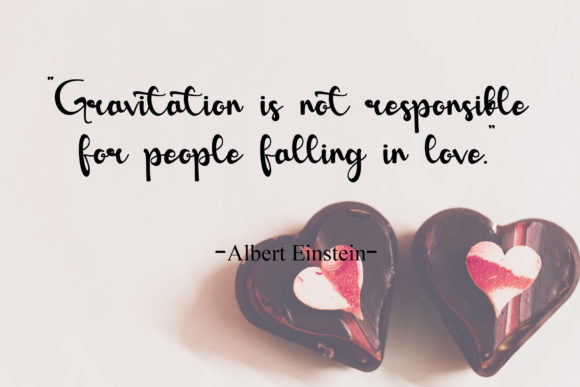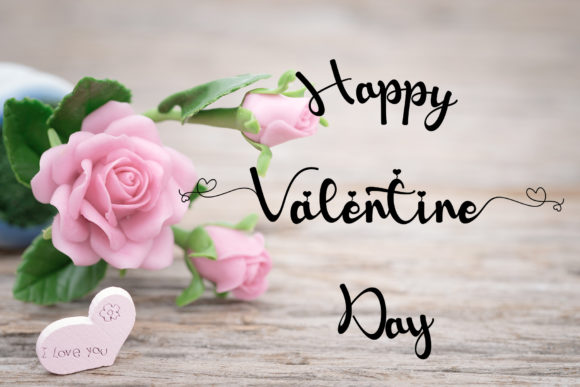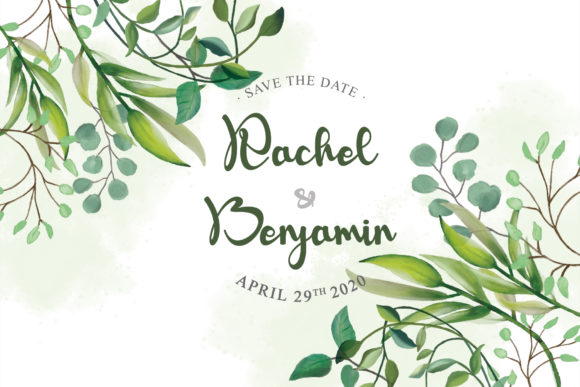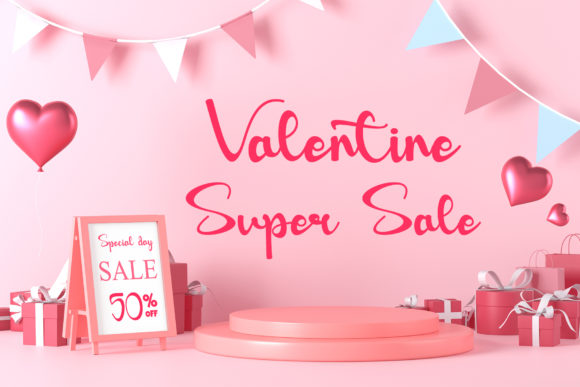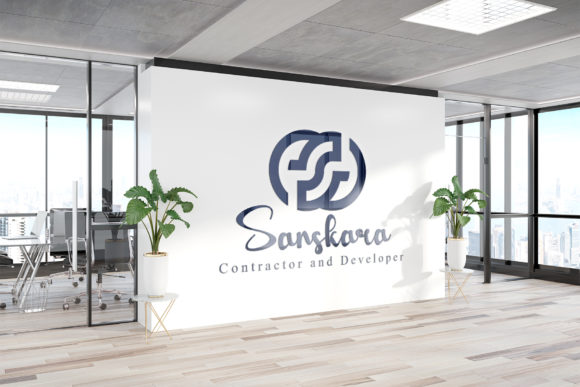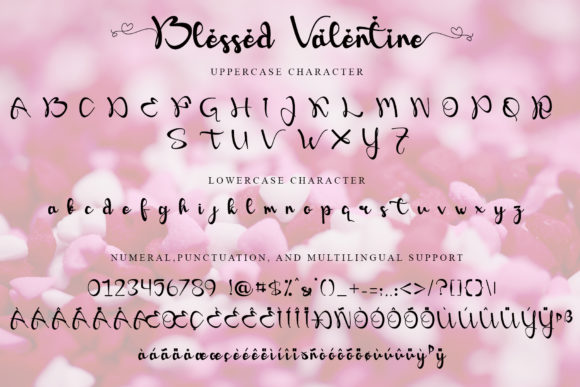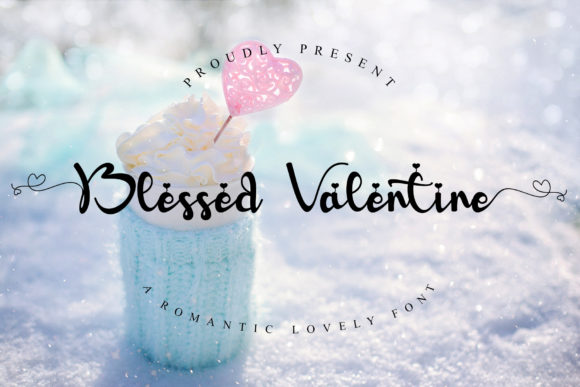
The Quest for the Perfect Font: Discovering Blessed Valentine
I’ll never forget the time I was working on a project for a client who wanted a custom wedding invitation. I had the design concept nailed, but I was struggling to find the perfect font to bring it all together. The font had to be elegant, delicate, and convey a sense of romance. I scoured the internet, tried out countless fonts, but nothing seemed quite right. That was until I stumbled upon Blessed Valentine.
This beautiful, handwritten font has been a game-changer for me and countless other designers, crafters, and creative hobbyists. In this article, I’ll share my honest review of Blessed Valentine, provide a step-by-step guide on how to use it, and explore similar fonts that you might love.
An Honest Review of Blessed Valentine
- ✨ Delicate and elegant handwritten design
- ✅ Distinct and well-rounded letters that make it a masterpiece
- 💡 PUA encoded for easy access to glyphs and swashes
- 🎨 Highly versatile and suitable for various design projects, from wedding invitations to branding and packaging
While Blessed Valentine is an amazing font, there are a few things to keep in mind:
- ⚠️ Some users might find the font a bit too delicate for certain design projects
- 🤔 Limited availability of language support, so it’s essential to check compatibility before use
Blessed Valentine was created with the intention of crafting a beautiful, elegant font that’s perfect for romantic and whimsical designs. The designer drew inspiration from classic calligraphy and handwritten scripts, with a focus on creating a font that’s both delicate and distinctive.
| Font Name | Blessed Valentine Font |
| Author | Arkrist Letter Studio |
A: PUA (Private Use Area) encoding allows font users to access glyphs and swashes easily, making it simpler to create beautiful designs.
Q: Is Blessed Valentine suitable for body text?
A: While Blessed Valentine is a beautiful font, it’s more suited for headlines and titles. For body text, a clearer font might be more readable.